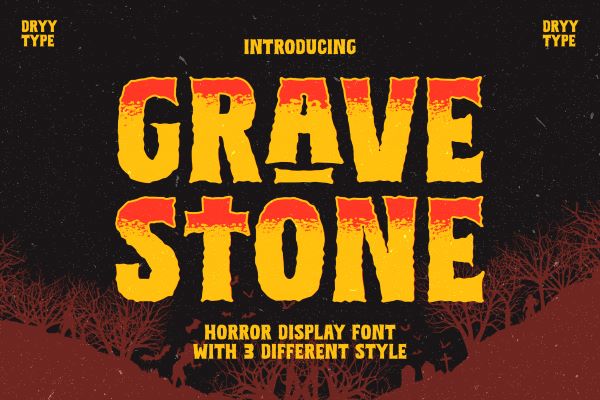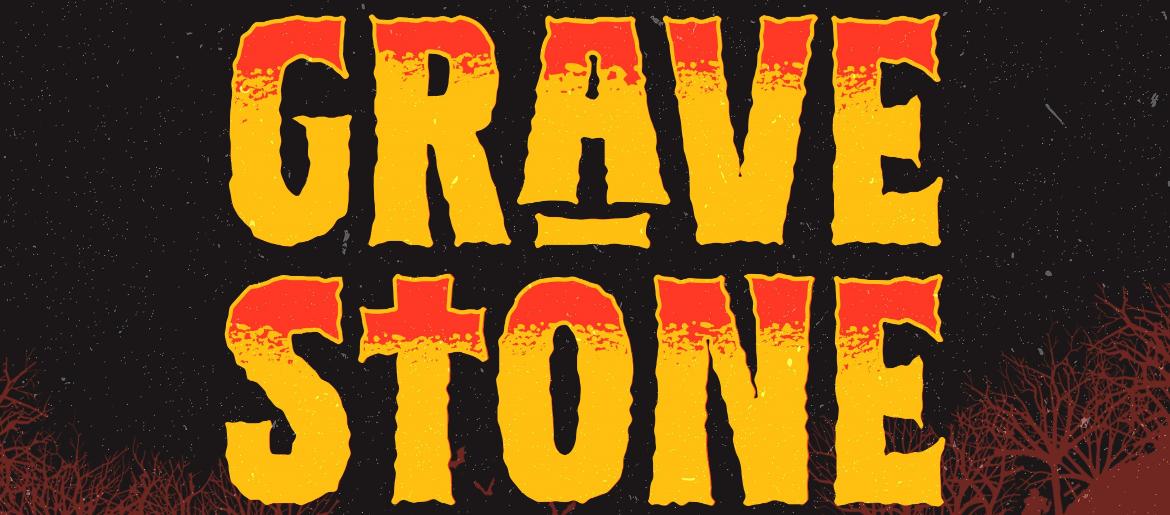
Gravestone Font
Gravestone by Rian Dryana / Dryy Type is a horror display typeface from Bandung-based designer Rian Dryana, purpose-built for the grunge-saturated aesthetic language of Halloween, horror, and dark-themed creative work. The letterforms are heavily textured and irregularly shaped, channeling the visual energy of weathered stone carving, decaying signage, and handmade lettering from the margins of the macabre. Three distinct styles — Regular, Outline, and Texture — give it real versatility within its niche, while upper and lowercase sets, alternates, ligatures, and multilingual support make it a more fully functional display face than its Halloween-specific branding might suggest. A free personal-use demo is available; the full version is sold via Gumroad and Creative Market.